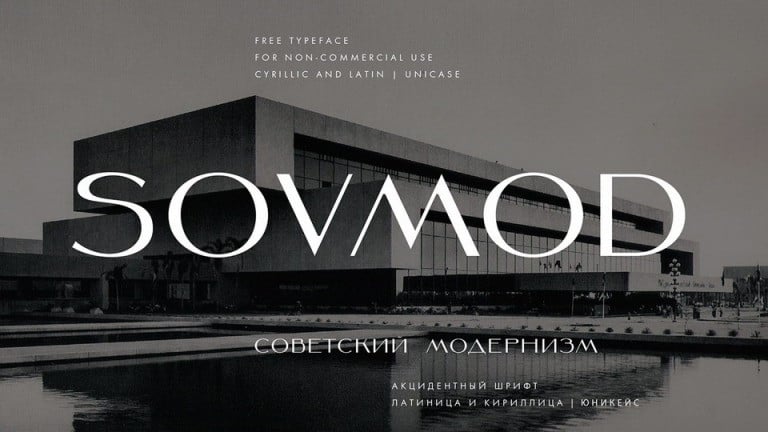
Sovmod Sans Serif Font
Sovmod Sans Serif Font is a luxurious high contrast sans serif well suited for fashion and haute couture design or glamorous headlines. It is a font from the designer Stanislav Chiganov. Sovmod is a contrast display typeface inspired by Soviet Modernism style in architecture. The font has Latin and Cyrillic support.
Sovmod works best for headlines and short text blocks, logos and branding. This font is free for PERSONAL AND COMMERCIAL USE.